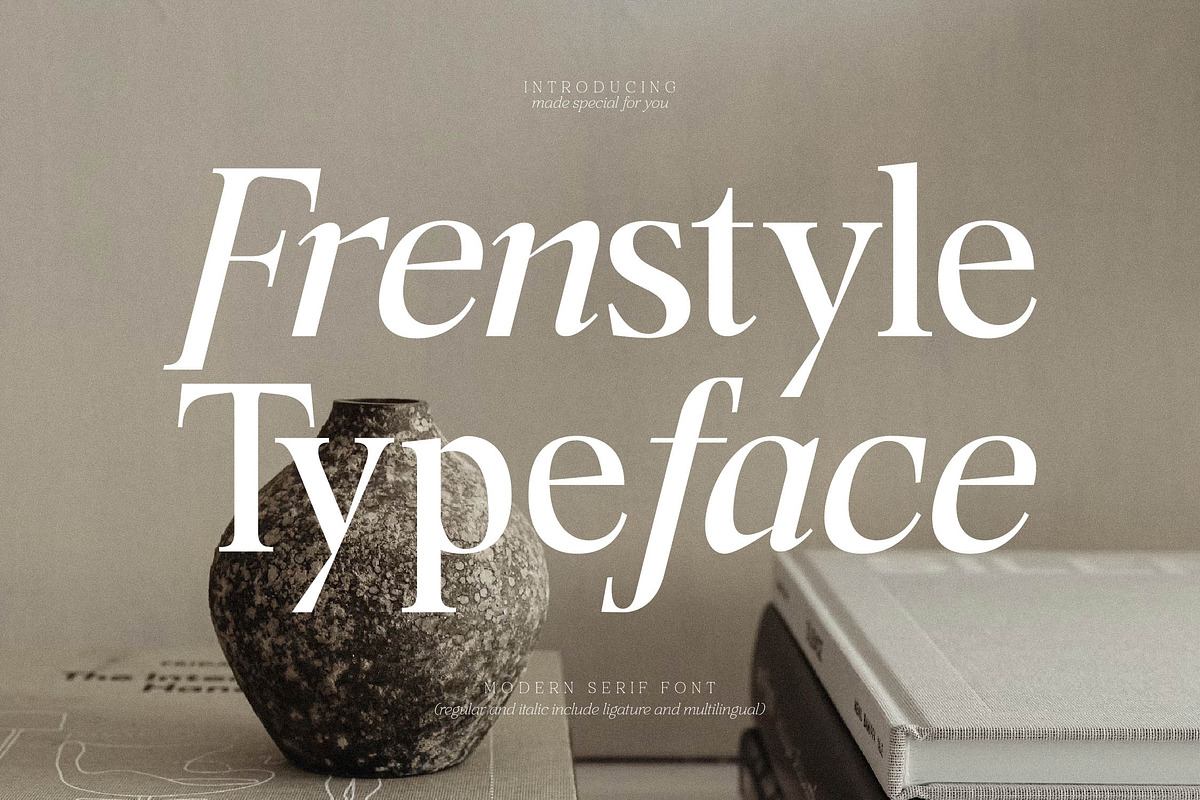
Frenstyle Modern Serif Font Free Download
Please note, to use this font for commercial purposes, you must purchase the full version. Frenstyle is a sleek and modern serif font that combines sophistication with contemporary design. Perfect for logos, branding, websites, and editorial projects, this font adds a refined and stylish touch to your work. Whether you're designing for a luxury brand, a high-end event, or a chic marketing campaign, Frenstyle enhances your design with its clean, modern appeal. Test it out and enjoy free download access for personal use. Experience the modern elegance of Frenstyle Modern Serif Font Free Download before purchasing the commercial license. Add a stylish and professional flair to your designs with Frenstyle.